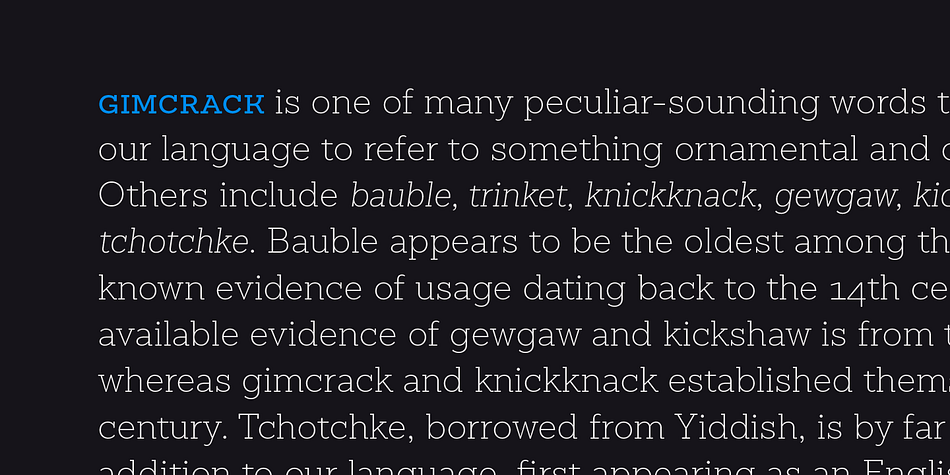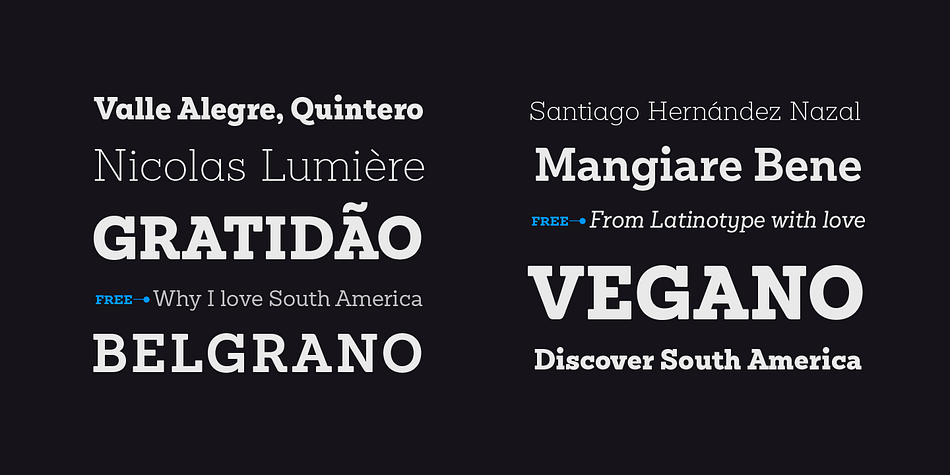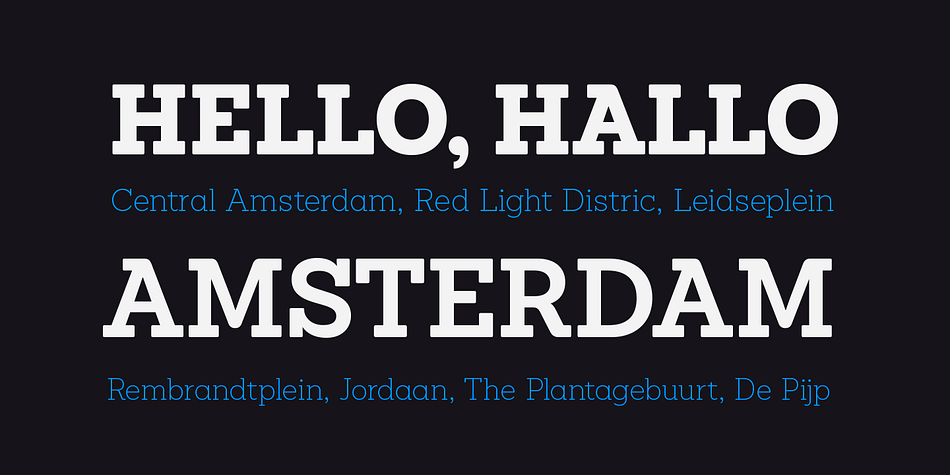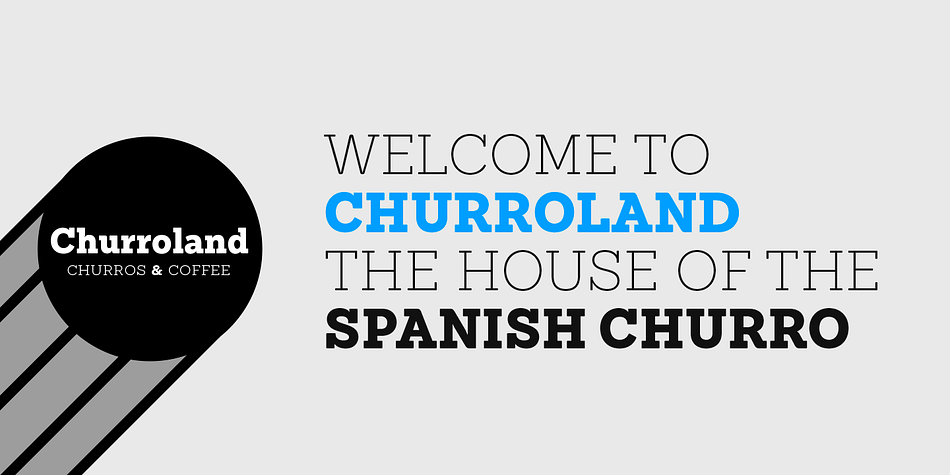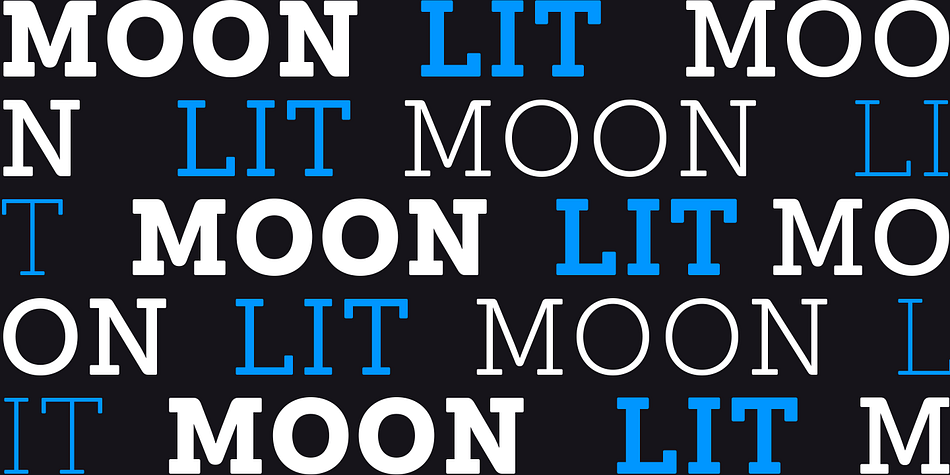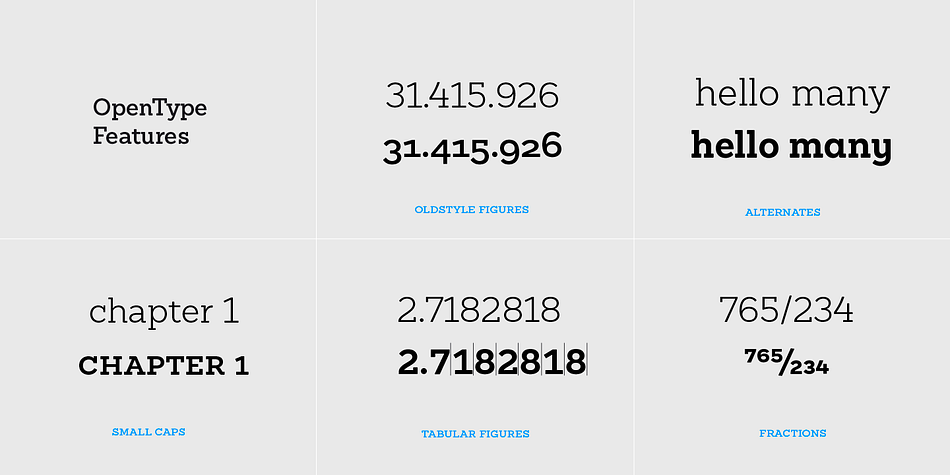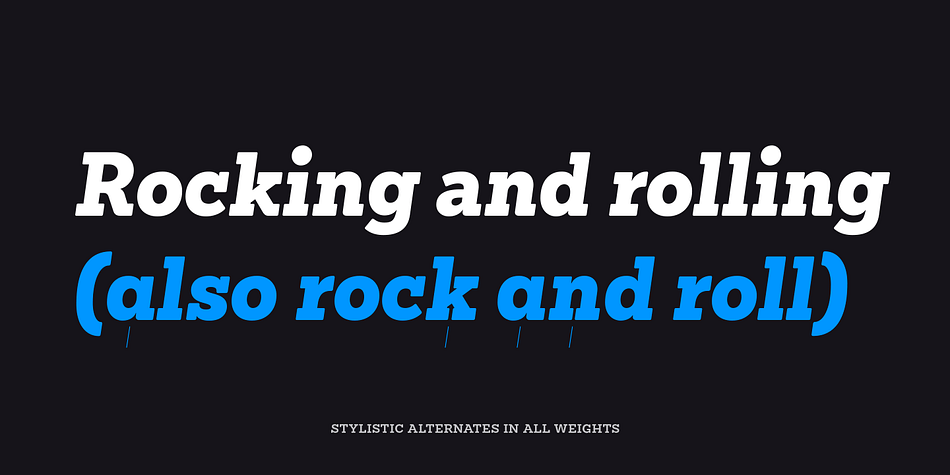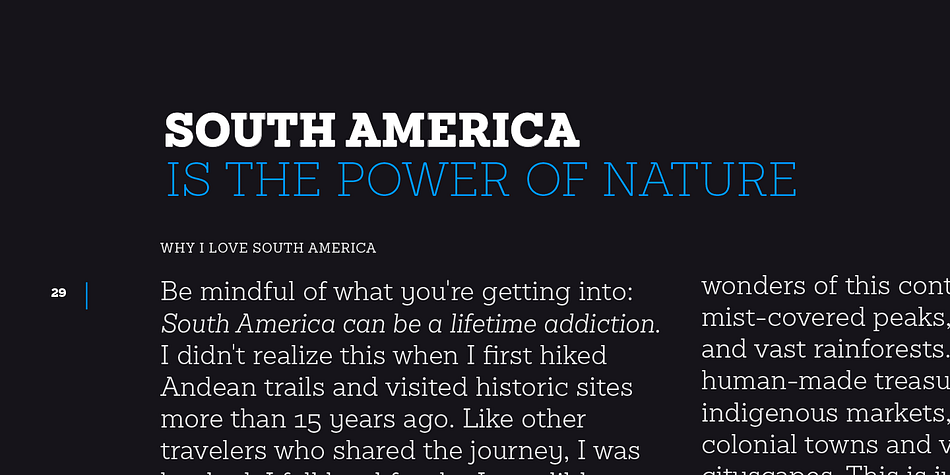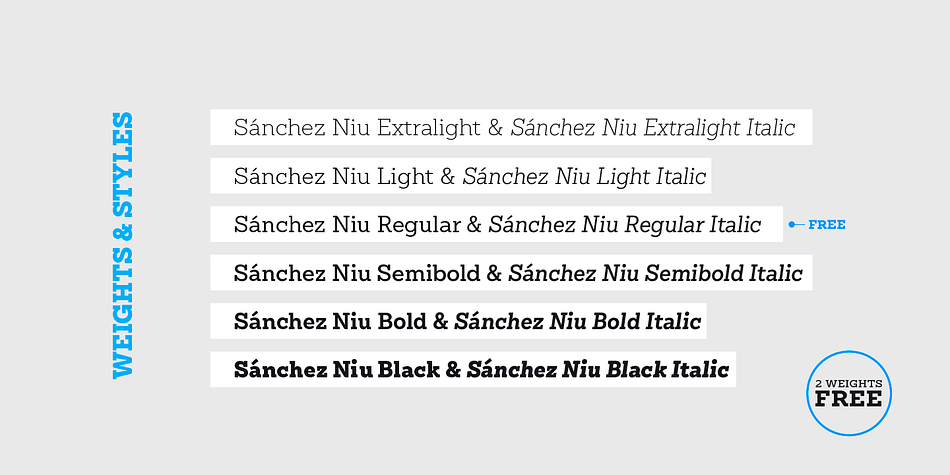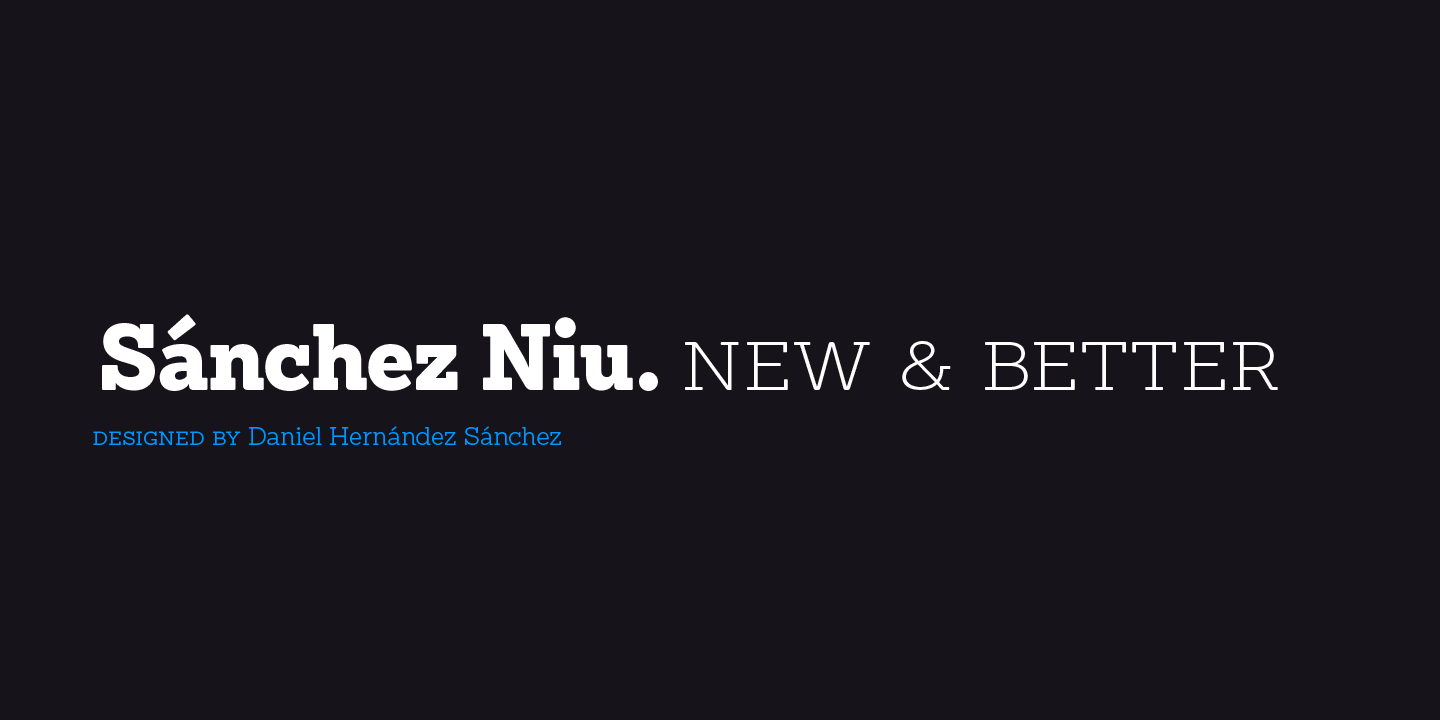
Designed by Daniel Hernández, Sanchez Niu is a slab serif font family. This typeface has twelve styles and was published by Latinotype.
Sánchez Niu is a redesign of Sánchez - one of the first font families by Latinotype designed in 2011.
This new version includes improvements that make it work well with longer text. Such improvements have not had a major effect on the look of the font, though. We have adjusted the original proportions and added a number of new characters as well as OpenType features such as small caps, oldstyle figures, tabular numbers and stylistic alternates.
Sánchez Niu contains a set of 720 characters that support 219 languages. The font is well-suited for long text, headlines and logotypes, and it has been optimised for web usage.